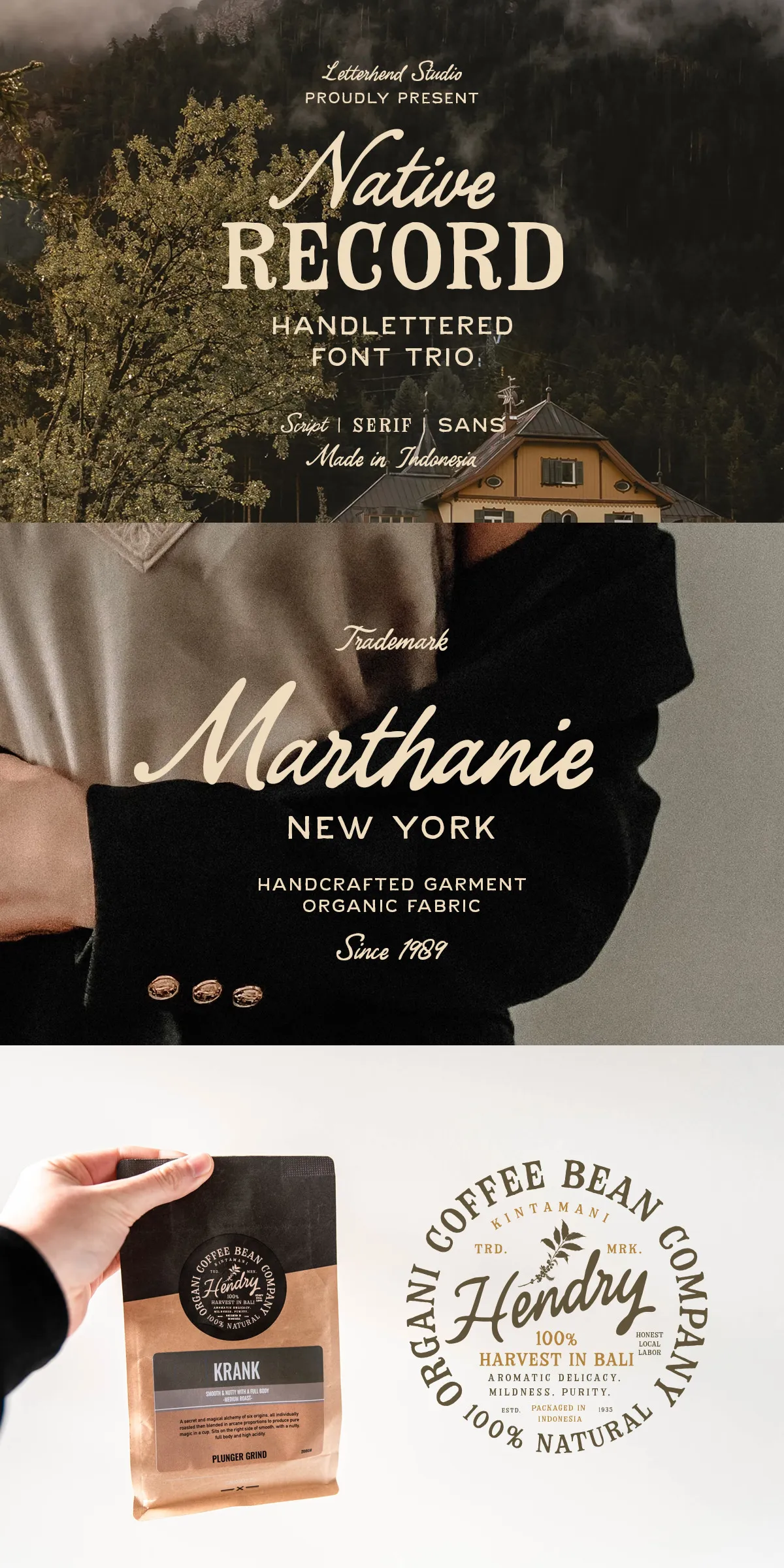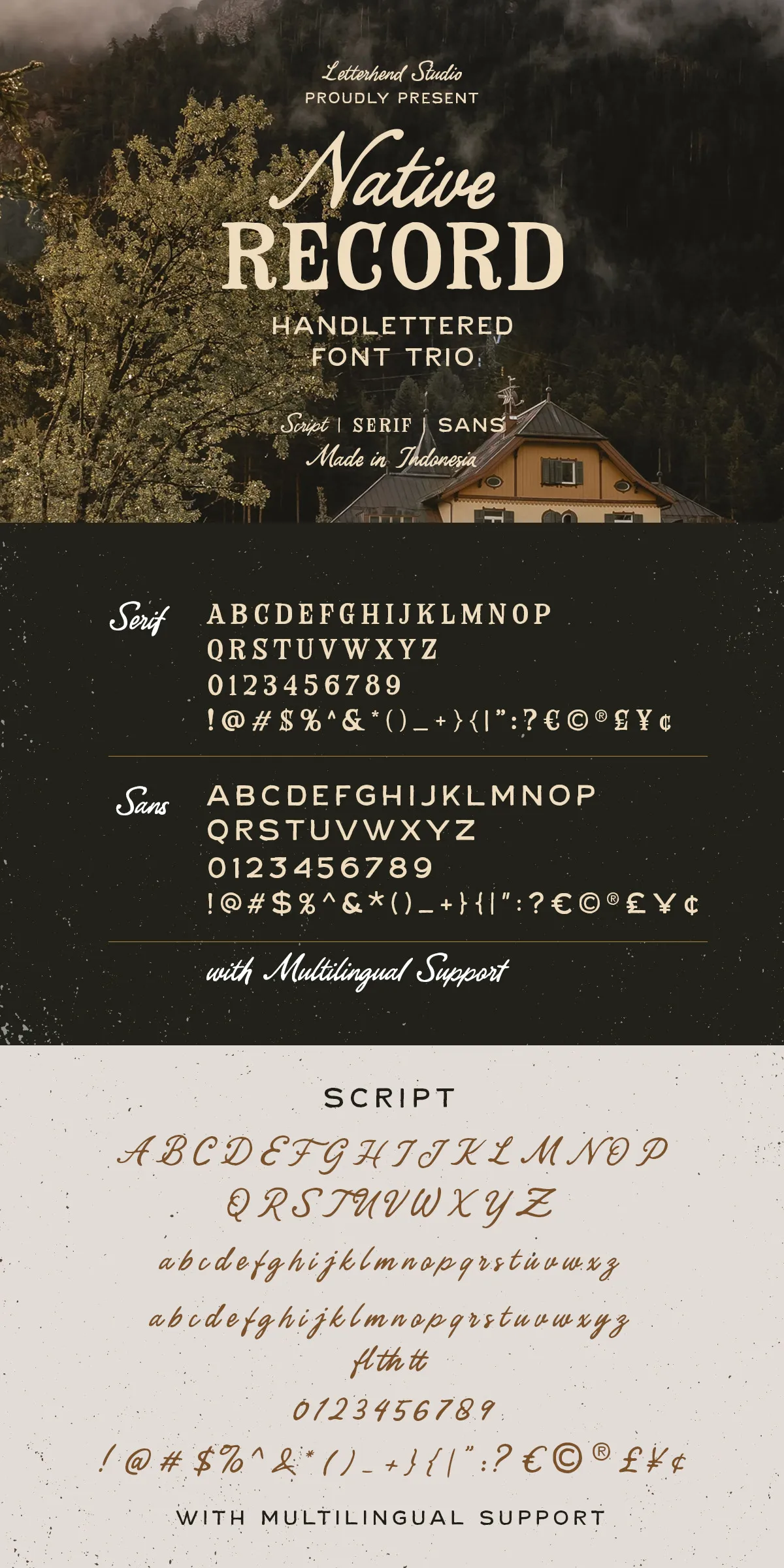
Unleash the soul of vintage Americana with Native Record Font Trio, a handcrafted typographic collection that captures the rustic charm of old-time craftsmanship and the bold personality of traditional country lettering. This dynamic trio—featuring a bold serif, a clean sans-serif, and a flowing script style—combines timeless aesthetics with modern versatility. Whether you’re designing a farmhouse wedding invite, branding a craft brewery, or creating editorial content with character, Native Record delivers authentic personality and expressive depth that elevates every project.
Why the Native Record Font Trio Is Essential for Authentic Creative Work
Designing with authenticity means choosing fonts that tell a story—and Native Record speaks volumes. Each font in the trio is meticulously crafted to reflect the warmth of hand-painted signs, weathered wood plaques, and vintage record labels. The serif style brings strength and tradition, the sans-serif offers clarity and modern balance, and the script injects emotion and personality. Together, they form a cohesive, expressive family that thrives in both traditional settings and contemporary design environments. You’re not just selecting a font. You’re selecting a design language rooted in heritage, yet built for today’s creative demands.
Advanced Features That Power Real-World Design Flexibility
- Full Uppercase & Lowercase Support – Perfect for headlines, body text, and name-based design elements with full linguistic coverage.
- Comprehensive Number & Punctuation Set – Ensures consistency and readability across data-rich layouts, labels, prices, and timelines.
- Multiple Alternates & Ligatures – Access dynamic glyph options for visual variety and organic flow. Customize letterforms to reduce repetition and enhance aesthetic rhythm.
- Multilingual Support – Designed for use across over 40 languages using the Basic Latin script, ideal for international brands, content creators, and multilingual publications.
- PUA Encoded Characters – Includes access to extra decorative glyphs and symbols via Private Use Area (PUA), enabling rich visual storytelling without relying on standard keyboard mappings.
Perfect Use Cases Across Creative and Branding Domains
The Native Record Font Trio isn’t limited to a single niche—it thrives in diverse applications where warmth, authenticity, and visual storytelling matter:
- Farmhouse & Country Branding – Ideal for farm-to-table businesses, craft distilleries, and artisanal brands seeking a rustic, trustworthy image.
- Event & Wedding Design – Use the script style for invitation calligraphy and the serif for elegant signage. Create cohesive, emotive design experiences.
- Editorial & Publishing – Bring a narrative feel to magazine covers, zines, book titles, and blog headers with typographic flair.
- Music & Record Label Graphics – Perfect for vintage vinyl-style artwork, concert posters, and music-related merchandise.
- Web & UI Design – Apply the sans variant for clean navigation and the script for standout headers—maintaining readability while adding character.
When design calls for warmth, grit, and genuine character, Native Record Font Trio is the answer. It’s more than a typeface—it’s a design philosophy. Embrace the imperfections, celebrate the craftsmanship, and create work that feels real. Whether you’re crafting a brand story, designing a poster, or building a website, this font family gives your work the depth, texture, and soul it deserves.